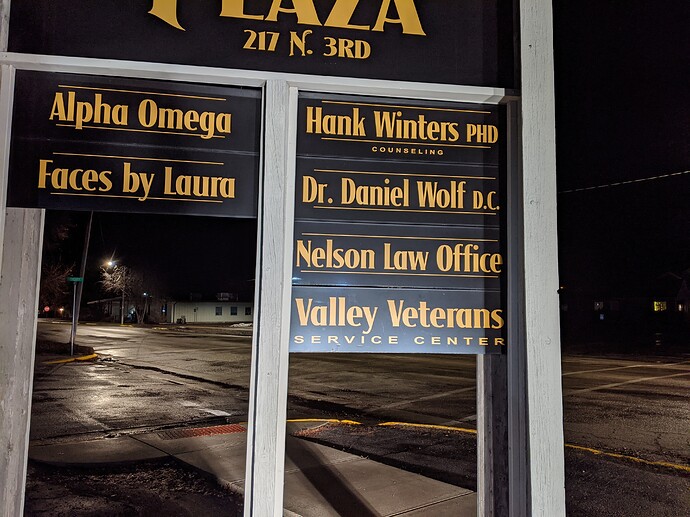
Hey there, just found this forum because I’ve been banging my head against the wall trying to remember what this font is called. I swear I’ve seen it before, that it’s super common, but I went through my companies entire library trying to match it and even the closest matches are still noticeably different. It’s got those little pinched-edge serifs and a sway on the center bars of the A, H, and N.
I tried running the photo through WhatTheFont and filtering through Identifont, but I didn’t get any good matches from there, either. Between me and my coworker, our best matches have been Goodfish and Ankura. I’m hoping someone out there can put a name to the bell this is ringing.
And to clairfy, I’m stuck on the long title signs - but if anybody recognizes that swanky N there by “3RD” I wouldn’t complain about learning what that guy was.